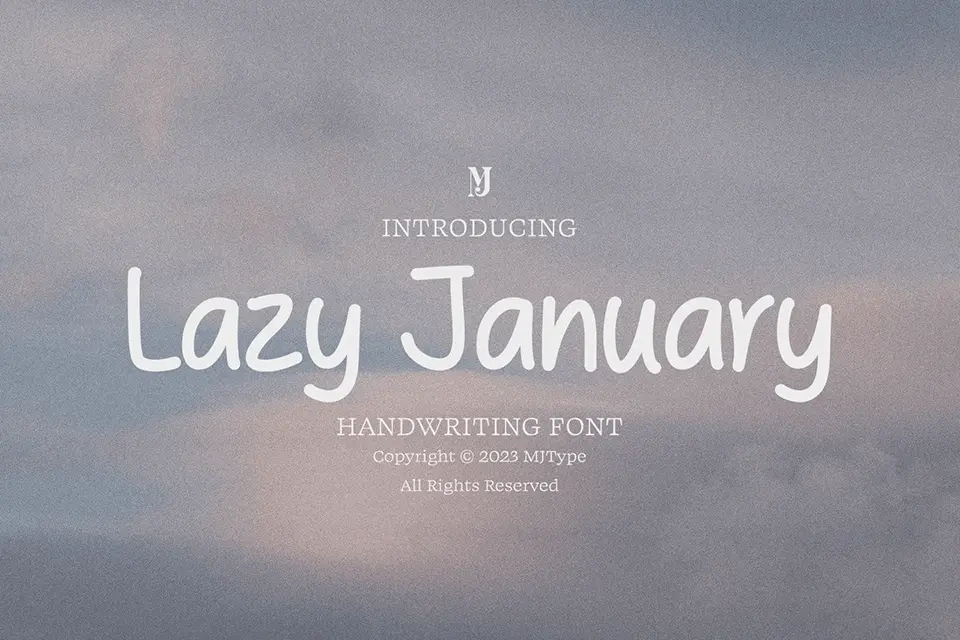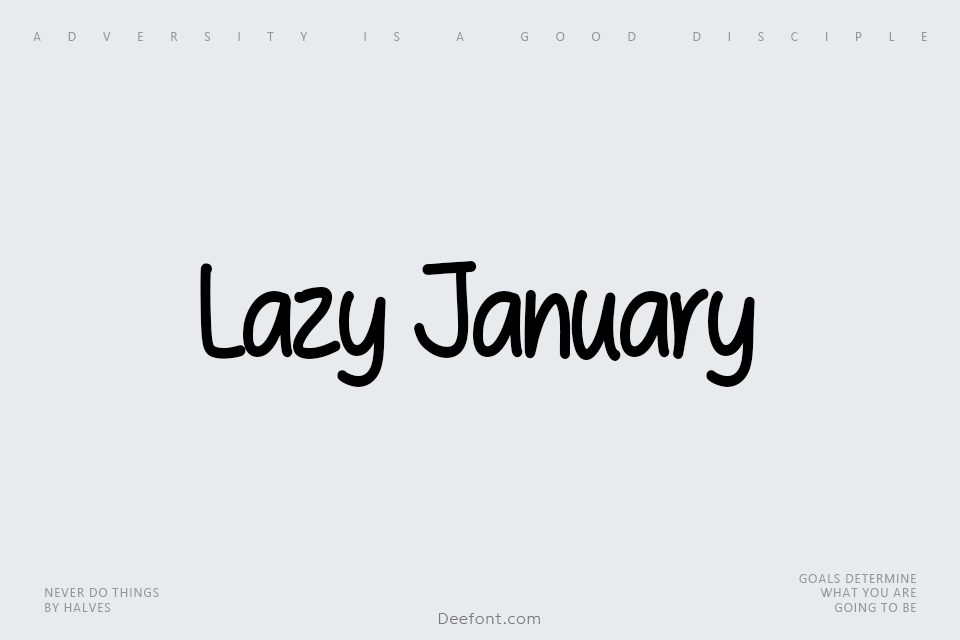
Lazy January Font
Lazy January is a charming handwritten script font designed by MJType that exudes casual, approachable charm with semi-light weight. This typeface strikes a perfect balance between readability and organic personality, mimicking natural handwriting variations. With gentle irregularities that make each letter feel carefully crafted, it brings warmth and authenticity to any creative endeavor. Ideal for invitations, branding, and editorial work while maintaining distinctive elegance and sincerity.